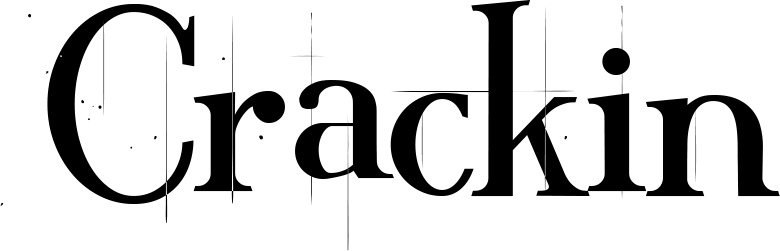
Crackin Font
If you have trouble designing mysterious styles and do not know what font to use, Crackin font shows you the way. This crack font will be suitable for many basic designs. In addition, you can use it to create T-shirts and packaging.
The advantage of this serif font is that you do not need to create characters from scratch, allowing you to save time and money.